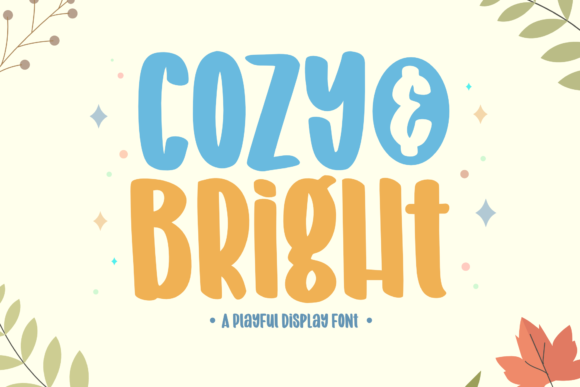
Designing with Joy: Unveiling the Cozy and Bright Font
Have you ever been brainstorming ideas for a new project and suddenly, a spark of creativity strikes, and you know exactly what you want to create? Maybe it’s a whimsical children’s book cover, a colorful poster for a fun event, or a playful logo for a brand that exudes warmth and happiness. Whatever it is, you need a font that captures the essence of your idea, and that’s where the Cozy and Bright Font comes in.
This cool and playful display font is designed to bring a touch of joy to your designs, making it perfect for cartoon-related projects, children’s games, quotes, titles, and more. Whether you’re a seasoned designer or just starting out, the Cozy and Bright Font is a valuable addition to your toolkit, offering endless possibilities for creative expression.
Cozy and Bright Font Key Features
- Font Family: Cozy and Bright Font is a unique, hand-drawn sans-serif font designed for warm and inviting typography.
- Character Set: Includes a comprehensive set of Latin characters, including uppercase and lowercase letters, numbers, and punctuation marks.
- Unique Characteristics: Features a distinctive, hand-drawn feel with subtle imperfections, giving it a warm and cozy aesthetic.
Cozy and Bright Font Review
Overall, I think Cozy and Bright Font is a solid choice for designers looking for a friendly and approachable font. ✨ The rounded edges and soft curves give it a welcoming feel that’s perfect for branding and packaging. The font is also highly customizable, making it easy to adapt to different design styles.
One of the things that really stands out about Cozy and Bright is its excellent legibility. ✨ The font is clear and easy to read, even at smaller sizes. This makes it a great choice for body text and headings.
- Welcoming and approachable feel
- Excellent legibility
- Rounded edges and soft curves
- May not be suitable for formal or professional applications
- Lack of bold weight options
- Can be difficult to pair with more modern or edgy fonts
- ⚠️ Limited support for certain languages
Overall, I’d give Cozy and Bright Font 4 out of 5 stars. While it has some limitations, its friendly and approachable feel makes it a great choice for designers looking to create a welcoming brand or product identity.
For the best results, use Cozy and Bright Font in designs that require a friendly and approachable tone, such as:
– Invitations and event announcements
– Blog posts and articles
– Social media graphics and ads
– Branding and marketing materials
– Keep in mind that Cozy and Bright Font is a sans-serif font, so it’s best suited for digital designs.
What is the recommended font size for using Cozy and Bright?
The recommended font size for Cozy and Bright is between 12pt and 24pt, depending on the desired level of detail and legibility. For body text, 14pt to 16pt is a good starting point, while larger font sizes are suitable for headings and titles.